Adelle has Respekt
Czech weekly journal Respekt runs the gamut from investigative journalism to self-care guidance. To carry out this wide editorial range, they have chosen Adelle and Adelle Sans for all website text.
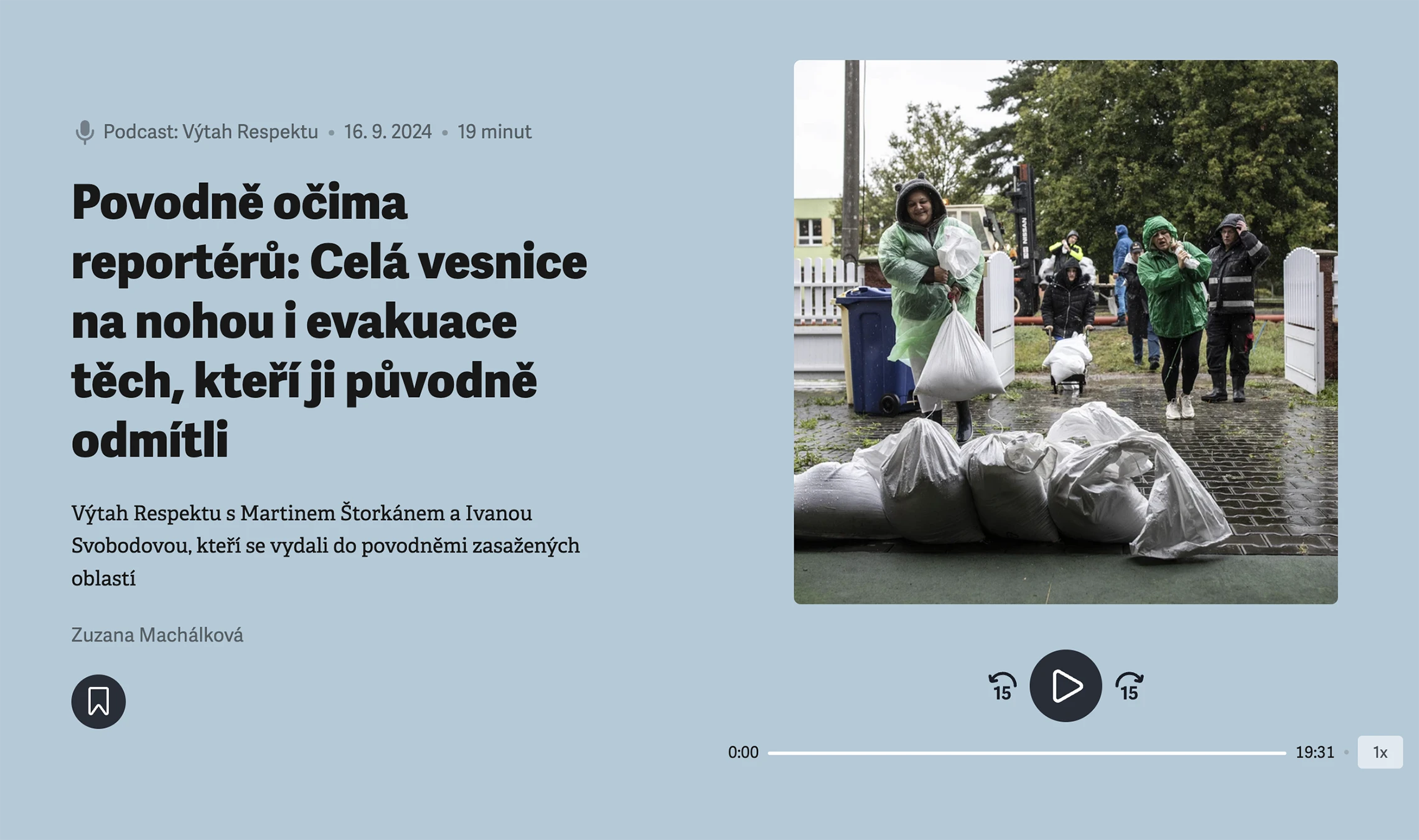
Sometimes resistance becomes mainstream, as is the case with the Czech weekly journal Respekt. The journal was founded in 1990, soon after the fall of the Communist party, via a laborious process of copying and distributing the text of its writers. To this day it remains one of the most cited news sources in the Czech Republic.
What began as reporting on domestic and foreign political and economic issues, as well as on science and culture, has evolved over the decades into “a liberal magazine which stands up for freedom of thought and the need for continuous questioning of its outcomes.” The weekly editorial concentrates on investigative journalism and in-depth articles, seeing its effects in the removal of scandalised politicians or drawing attention to hidden activities. Respekt has expanded in recent years to cover pop culture, recent events, ecological activism, and alternative culture movements.
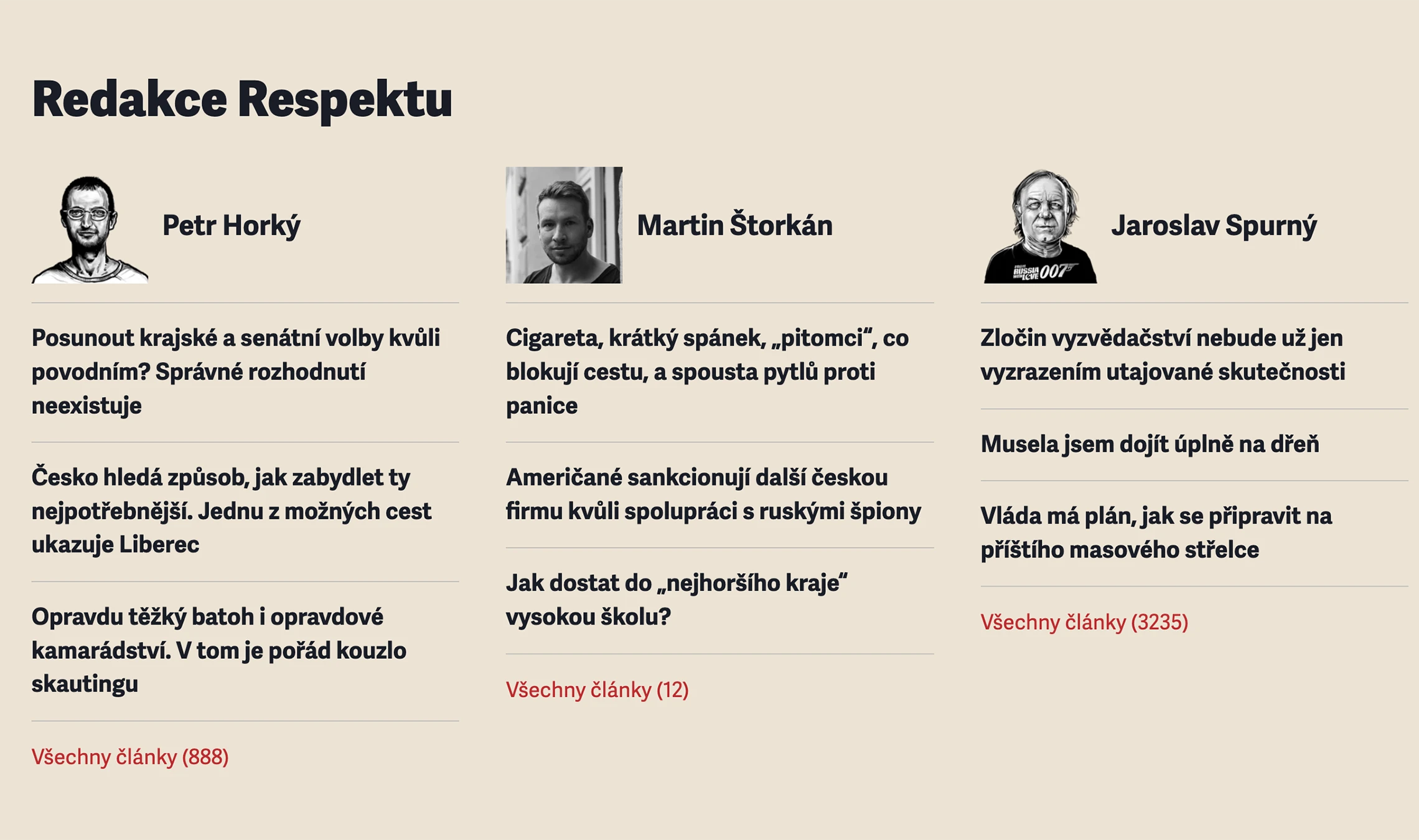
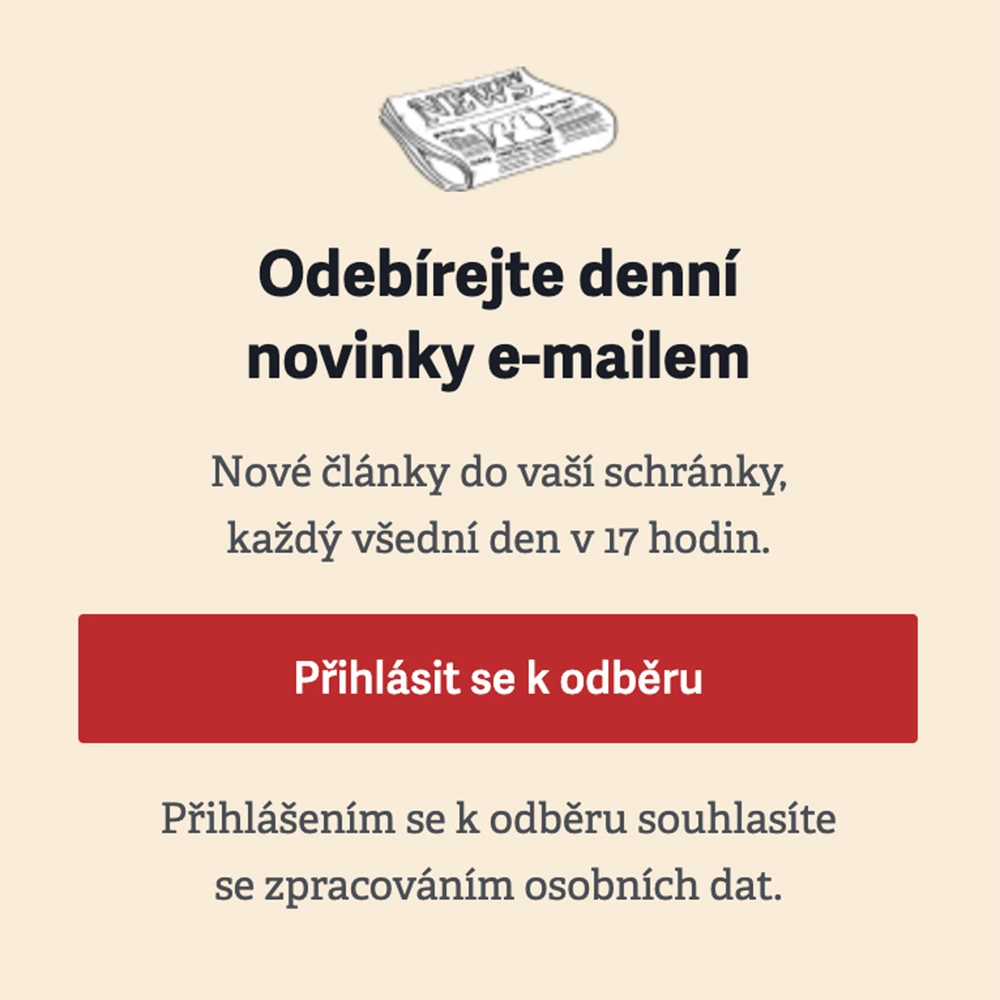
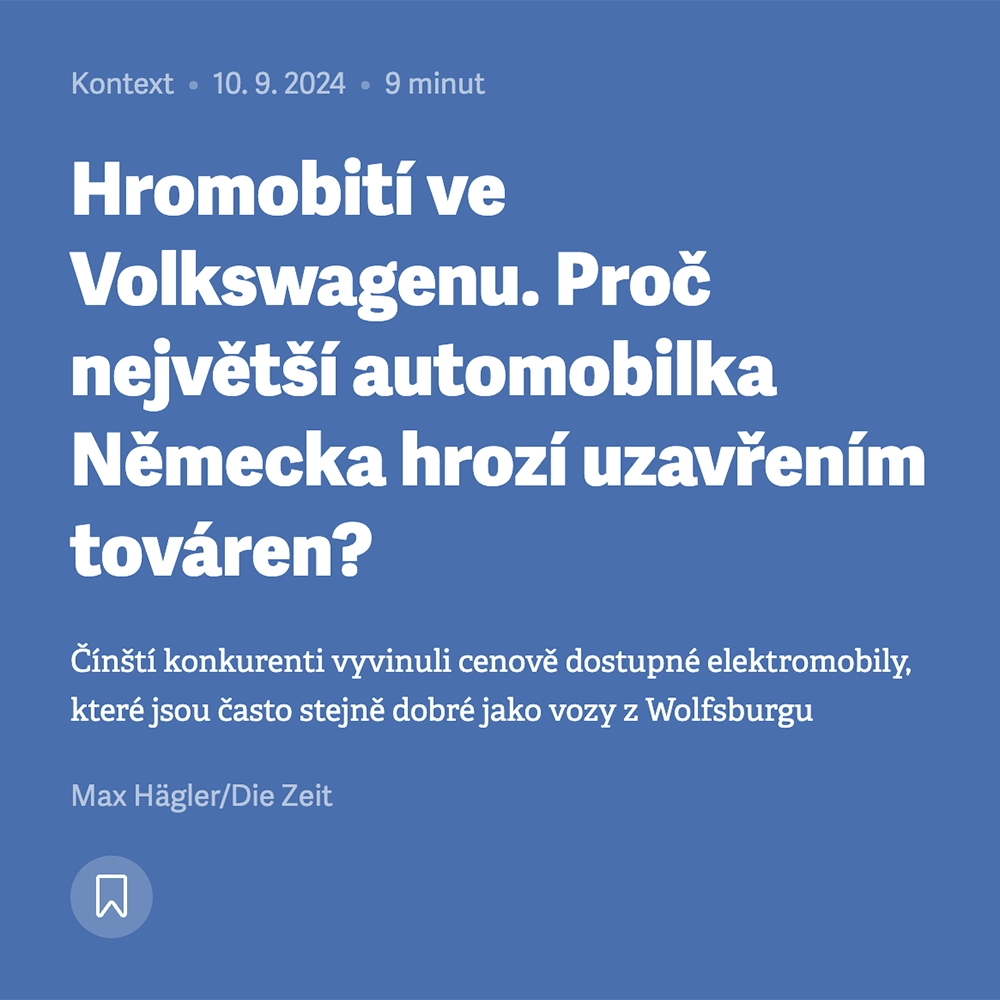
Our Adelle and Adelle Sans super-families were made for exactly these sort of wide-ranging narratives and topics. Headings and small text (captions, bylines, dates, read times) are set in Adelle Sans, a flexible and personable world-ready sans font family, providing true multilingual font support. All the paragraph text is set in the companion Adelle, a versatile and authoritative slab serif font family with no shortage of personality. With Czech’s manifold diacritics and the Adelle family’s flawless execution of those marks, the text is easily read with speed and enjoyment while giving the text its necessary gravitas.